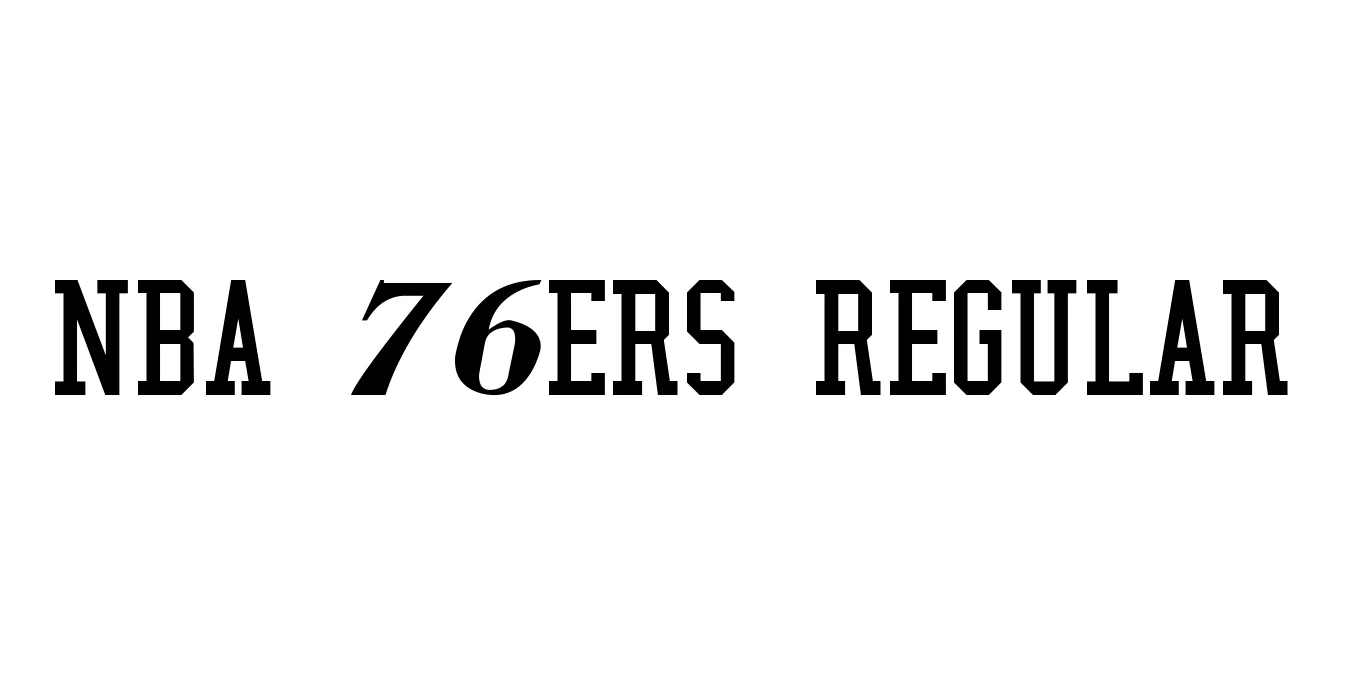
NBA 76ers Regular
Designed by Philadelphia 76ers Branding Team
The NBA 76ers Regular font is a specialized display typeface meticulously crafted to reflect the storied history and visual identity of the Philadelphia 76ers basketball franchise. Rooted in the team's classic 1970s aesthetic, the typeface has been modernized to serve contemporary branding needs. It features robust, bold strokes and unique geometric proportions that evoke a sense of professional athleticism and heritage, making it instantly recognizable to sports fans worldwide.
Primarily utilized for official jerseys, court graphics, and marketing collateral, this font excels in environments requiring high impact and legibility. Its design often incorporates elements that complement the iconic '76' logo and the ring of stars, maintaining a cohesive brand language across all digital and physical media. As a staple of professional sports typography, it continues to influence athletic design trends by balancing retro charm with modern performance standards.
NBA 76ers Regular Best Uses
Ideal for creating team logos, tournament banners, and athletic club identities.
Perfect for custom jerseys, fan t-shirts, and varsity-style clothing.
High-impact font for game-day announcements, player stats, and sports news templates.
Excellent for posters, stickers, and digital art dedicated to NBA enthusiasts.